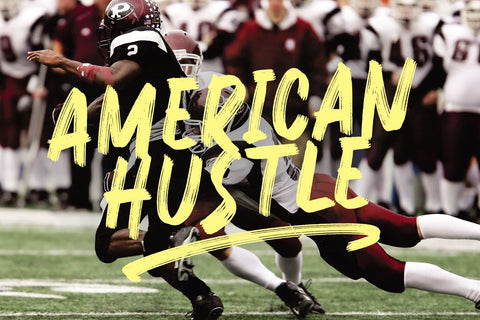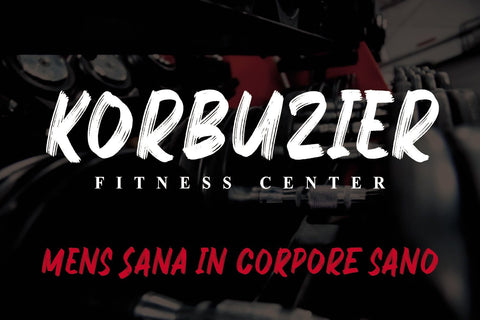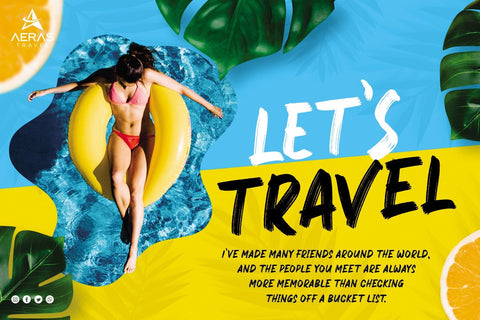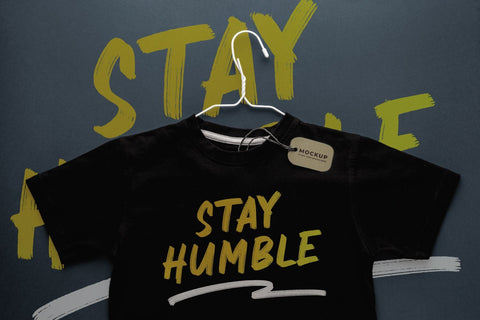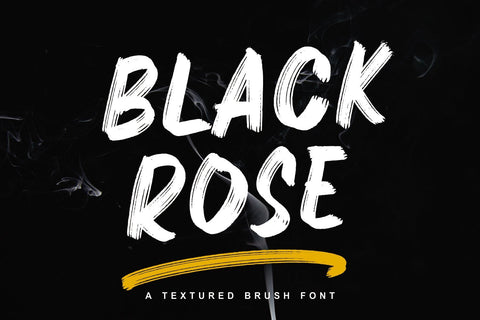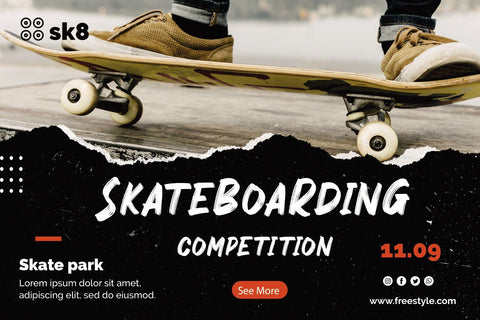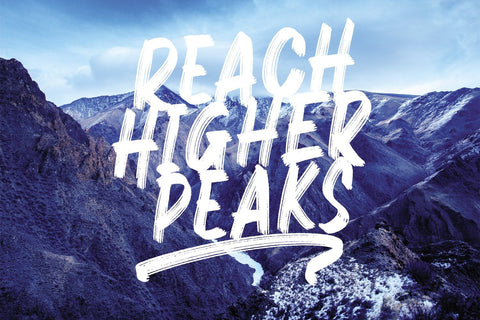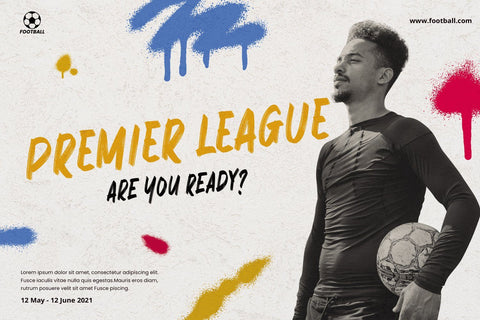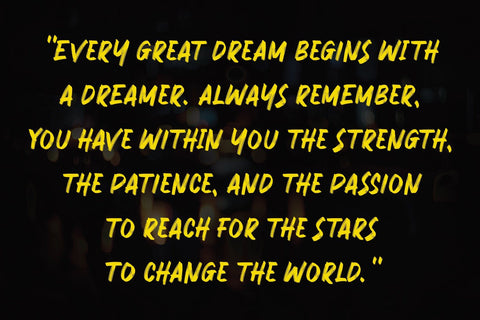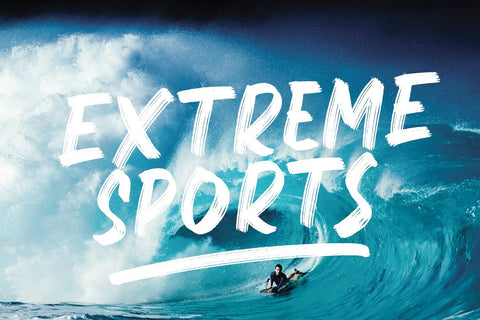
BlackrosE
Get summer ready with the Blackrose - a textured brush font
Blackrose comes with an extra font full of swashes
It is bold, tightly spaced, and retains all of the brush imperfections. It has a nice contrast with opaque parts and transparent ones. It will give your work an authentic and realistic paintbrush look!
It is a casual, fun display font, created by using a procreate.
It has an urban and trendy feel and it will most definitely fit a wide range of designs.
This font is perfect for sport flyer, music event, black friday flyer, discunt banner, brand announcements, packaging, quotes, branding, advertisements, blogs, logos, invitations and more!